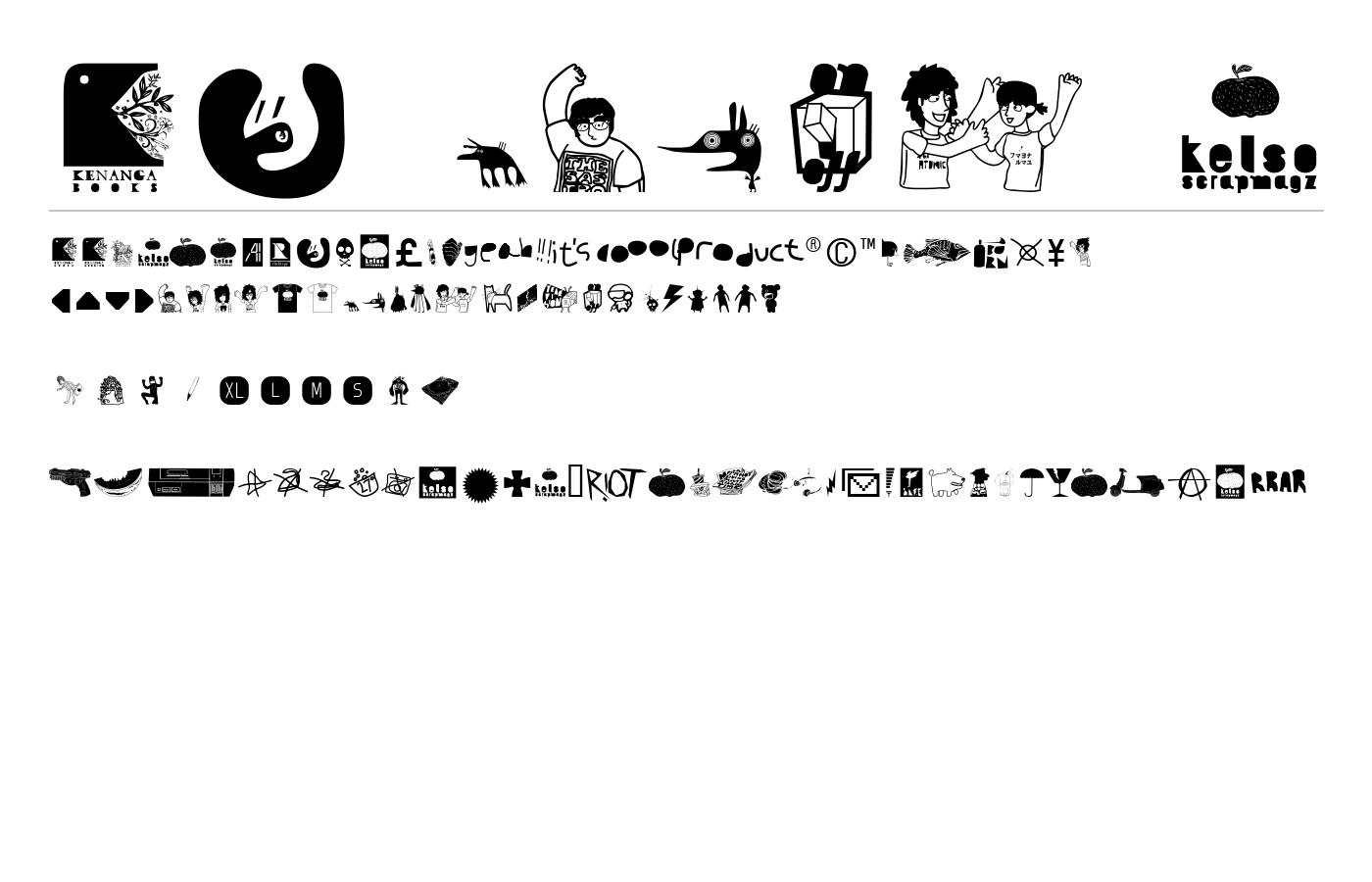
AI Kelso D is a highly decorative and playful display font featuring bold, solid shapes and quirky, unconventional glyphs. Its whimsical, almost cartoon-like characters and icon-like symbols give it a unique, artistic charm ideal for creative branding, posters, or editorial projects seeking a bold and imaginative look. This font is perfect for designs that want to stand out with a fun, eclectic personality rather than traditional readability.